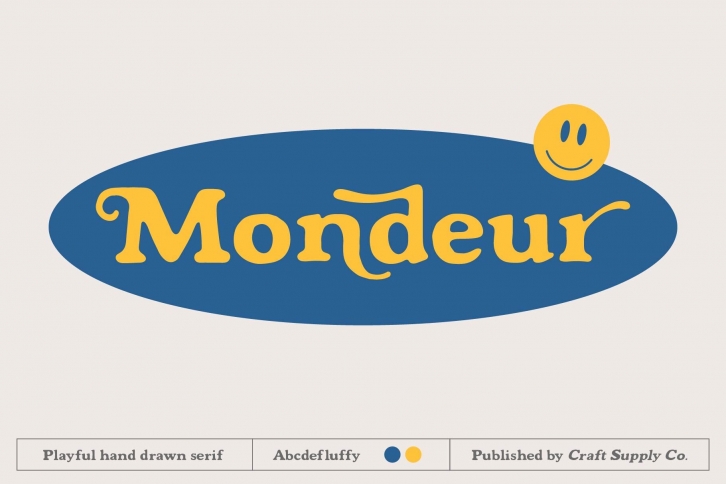
Introducing Mondeur - Playful Hand Drawn Serif
Mondeur - Playful Hand Drawn Serif. It can be used to create almost all types of design projects like print materials. Just use your imagination and your project will become more alive and look great than ever with Mondeur - Playfull Hand Drawn Serif.
You want to make a greeting card or a package design, or even a brand identity, craft design, any DIY project, book title, wedding font, pop vintage design, retro design or any purpose to make your art / design project look pretty and trendy? Feel free to play with this fonts!
1. Uppercase & Lowercase
2. Numerals & Punctuations (OpenType Standard)
3. Ligatures & Alternates
4. Accents (Multilingual characters) (AÀÁÂÃÄÅCÇDÐEÈÉÊËIÌÍÎÏNÑOØÒÓÔÕÖUÙÜÚÛWYÝŸỲŸÆŒßÞ)